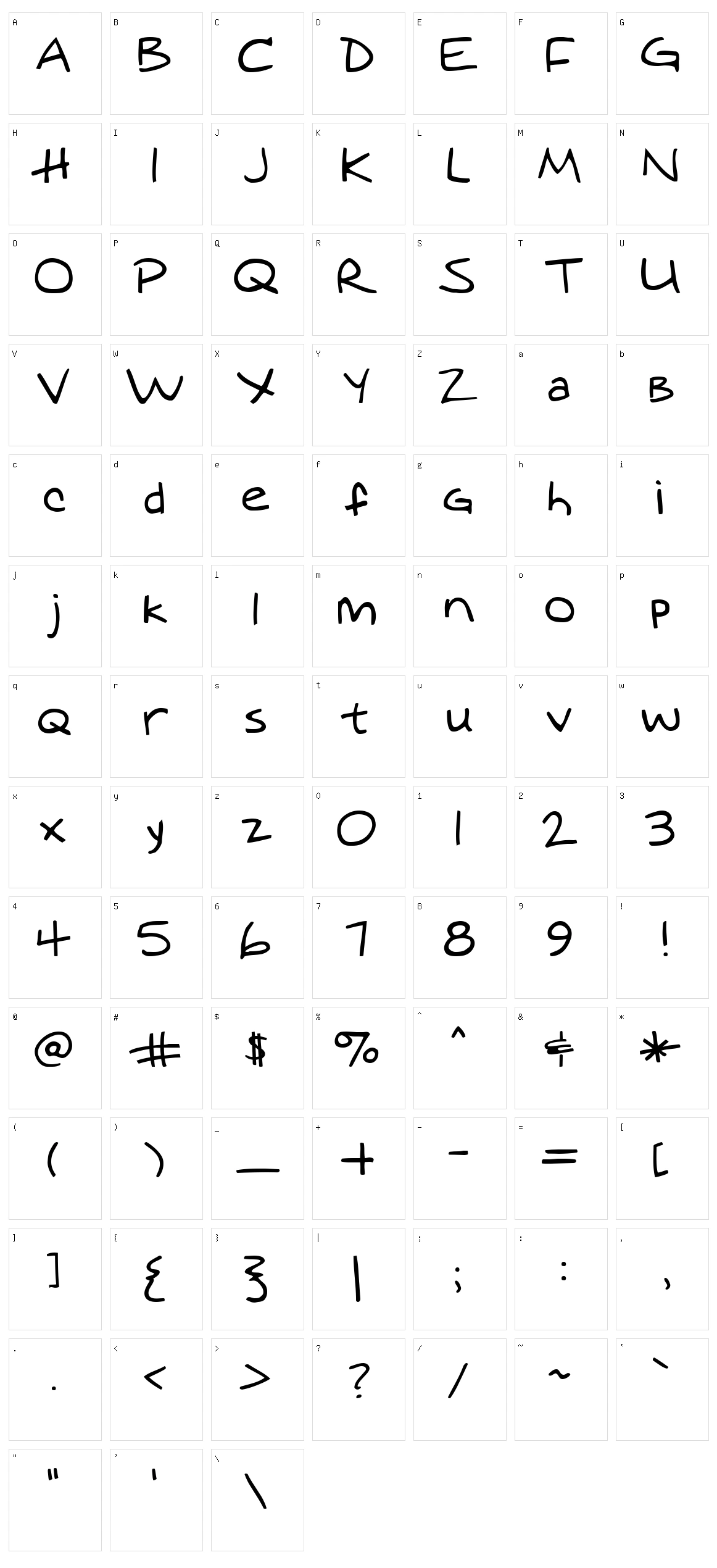
a handwritten casual based on the fall 1982 classnotes
of a solid B-minus college student.
designed in the emerald city, seattle, washington, usa,
by steven j. lundeen,
emerald city fontwerks,